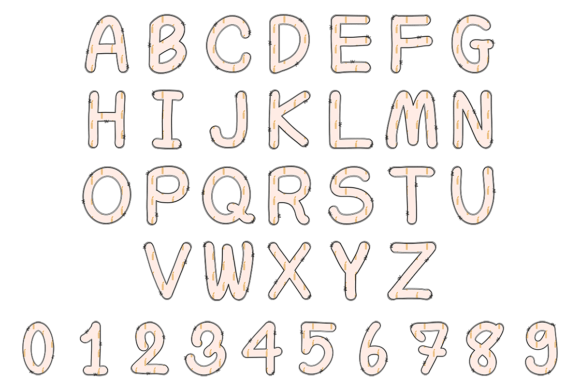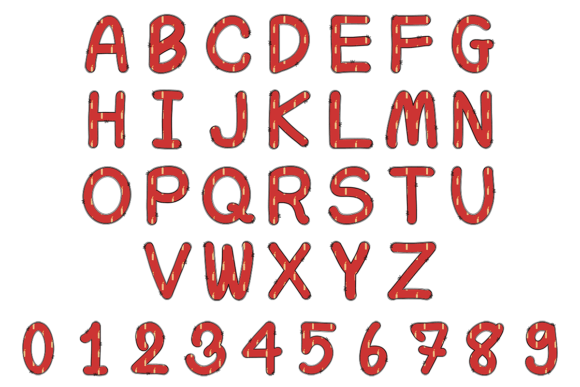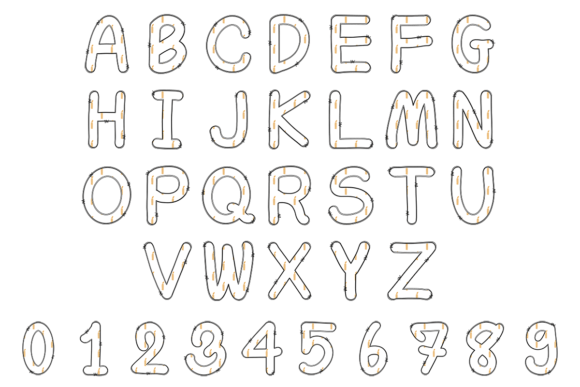
The Magic of Candle Font: Bringing Joy to Your Designs
As I sit by the fireplace, surrounded by twinkling lights and the warmth of the season, I’m reminded of the joy that comes with creating something special for those we love. It’s in these moments that I’m inspired to craft designs that bring a smile to people’s faces – and that’s exactly what I’ve done with the Candle Font.
This adorable color font is perfect for Christmas, New Year’s, or any occasion that calls for a touch of whimsy and charm. With Candle Font, your options are limitless, and I’m excited to share this treasure with you. Whether you’re a seasoned designer or just starting out, this font is sure to become a favorite – and with good reason. It’s compatible with popular design tools like PhotoShop, Illustrator, Silhouette, and Inkscape, making it easy to incorporate into your projects.
Candle Font Key Features
- Font Family: Candle Font is a unique, hand-drawn font with a warm and cozy aesthetic.
- Unique Characteristics: The font features intricate details, subtle texture, and a soft glow effect that gives it a warm and inviting feel.
- Font Style: Candle Font comes in 6 different styles: Regular, Bold, Italic, Bold Italic, Outline, and Shadow, allowing for a wide range of creative possibilities.
As a designer, I was excited to dive into Candle Font and see what it has to offer. Here’s my honest review.
- Candle Font has a unique and playful feel that’s perfect for branding and marketing materials.
- The font is highly customizable, with a wide range of styles and weights to choose from.
- The font is well-suited for digital and print use, making it a versatile option for designers.
- The font can be quite ornate, which may make it difficult to read in certain contexts.
- The font lacks a clear distinction between light and dark modes, which may cause readability issues.
- The font is not suitable for body text, as it can be overwhelming and difficult to read in large quantities.
Candle Font is a great choice for designers who want to add a touch of whimsy and personality to their projects. However, it may not be the best option for projects that require clear and concise communication. With some careful consideration of the font’s limitations, Candle Font can be a valuable addition to any designer’s toolkit.
To get the most out of Candle Font, use it in combination with candle-themed images or icons. Common use cases include:
- Creating candle-themed invitations or party decorations
- Designing candle-inspired logos or branding
- Adding a touch of warmth and coziness to your designs